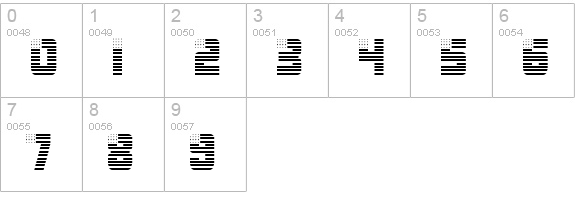
Fourth Display Caps SSi Font Details
Fourth Display Caps SSi font is a striking and elegant typeface that exudes sophistication and style. With its bold and distinctive letterforms, this font is perfect for making a statement in your design projects. The unique design of the Fourth Display Caps SSi font makes it stand out and adds a touch of class to any text. The best part about Fourth Display Caps SSi font is that it is freely available to download at FontsMarket.com. You can easily access this stunning font and use it in your projects without any cost. Whether you are creating posters, invitations, logos, or any other design, Fourth Display Caps SSi font will elevate your work and make it more visually appealing. Don't miss out on the opportunity to enhance your designs with the Fourth Display Caps SSi font. Download it for free today and bring a touch of sophistication to your projects.